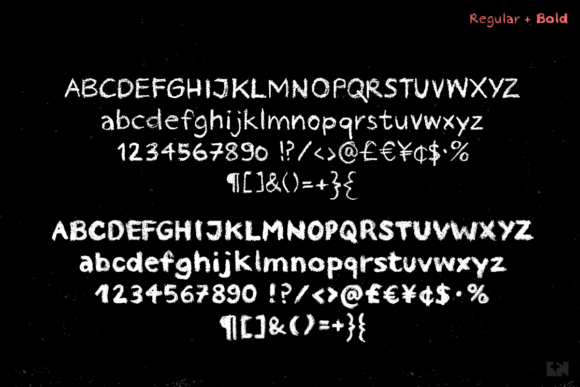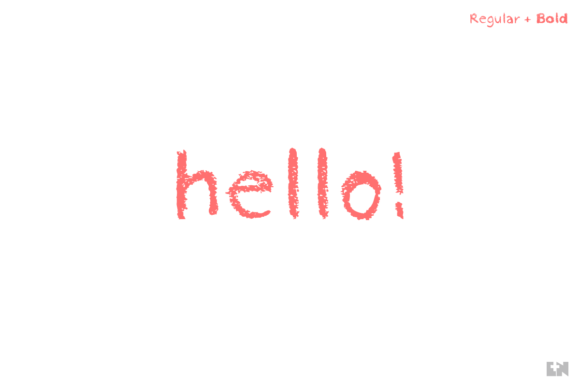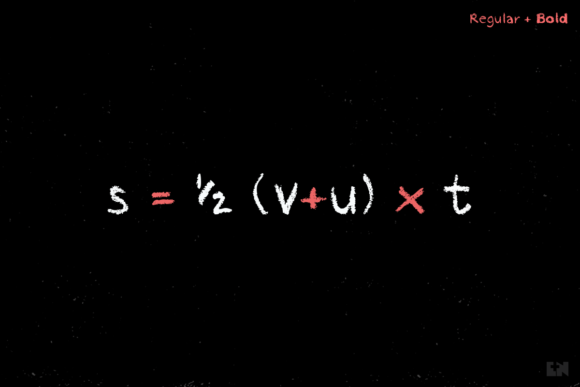
Crayon Hand Font
About Crayon Hand Font
If you’re lacking oil pastels, charcoal, crayons or time, Crayon Hand is a quick soluation to any design project that requires an authentic touch!